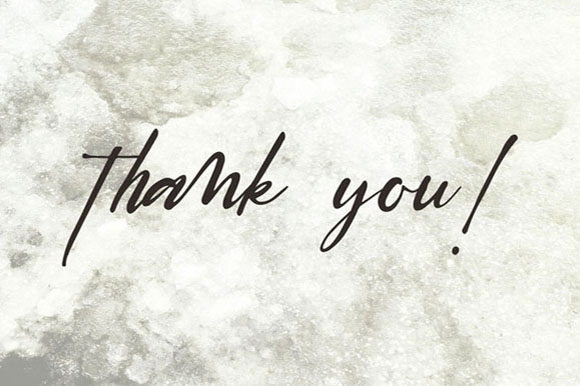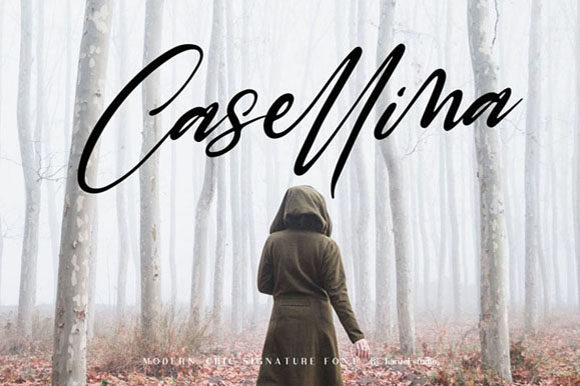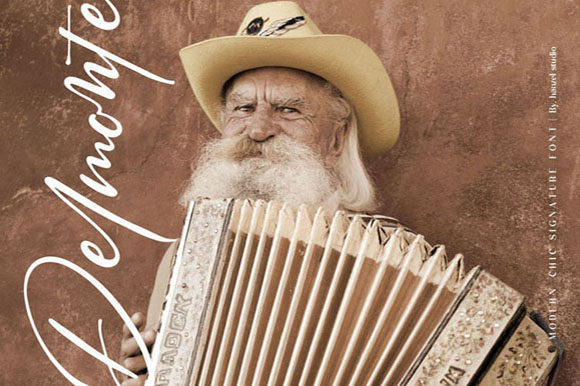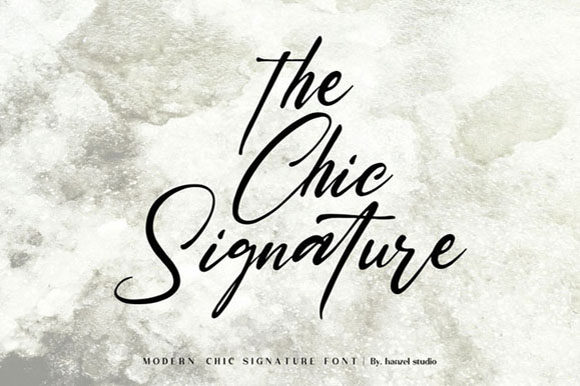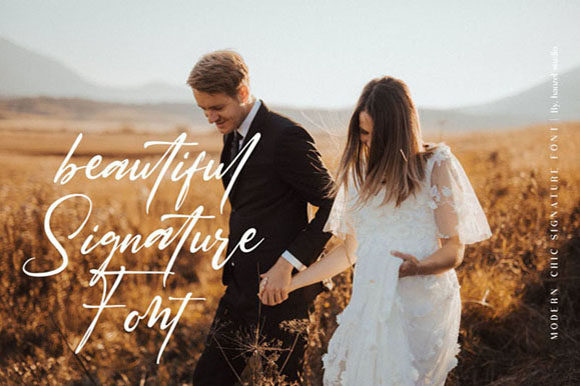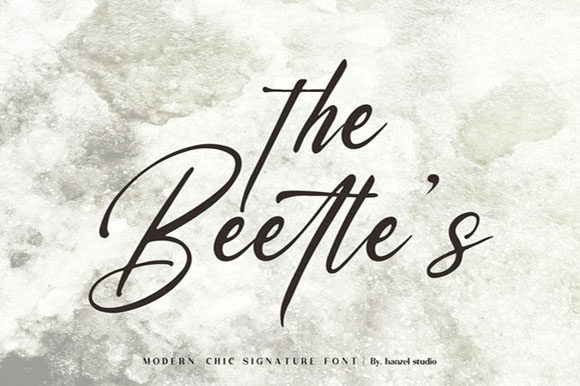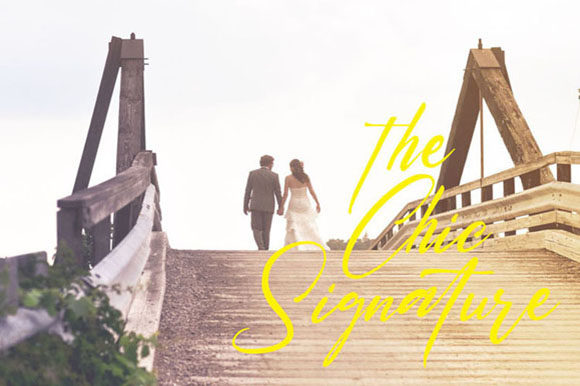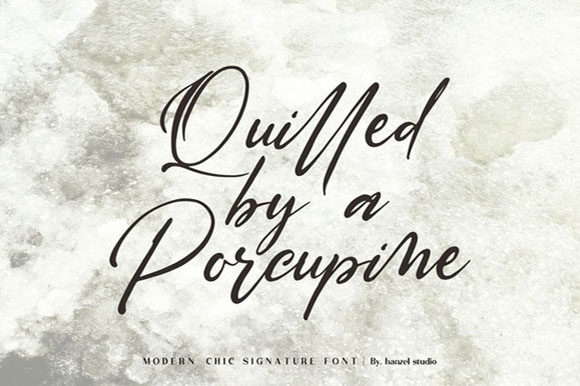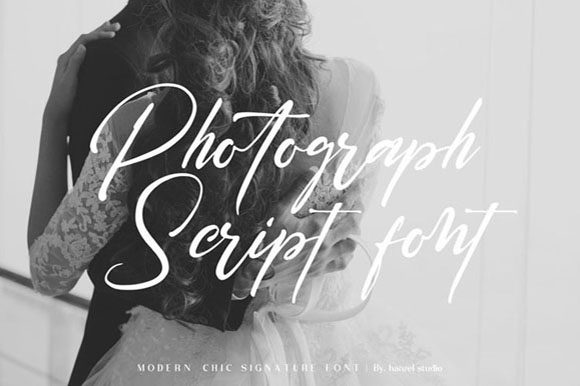
Saltacrus Font
Saltacrus Font Poster 1
About Saltacrus Font
Saltacrus is a cute signature font with an awesome fell. It’s perfect for logos, signatures, wedding invitations and any crafting project that requires a personalized appearance!